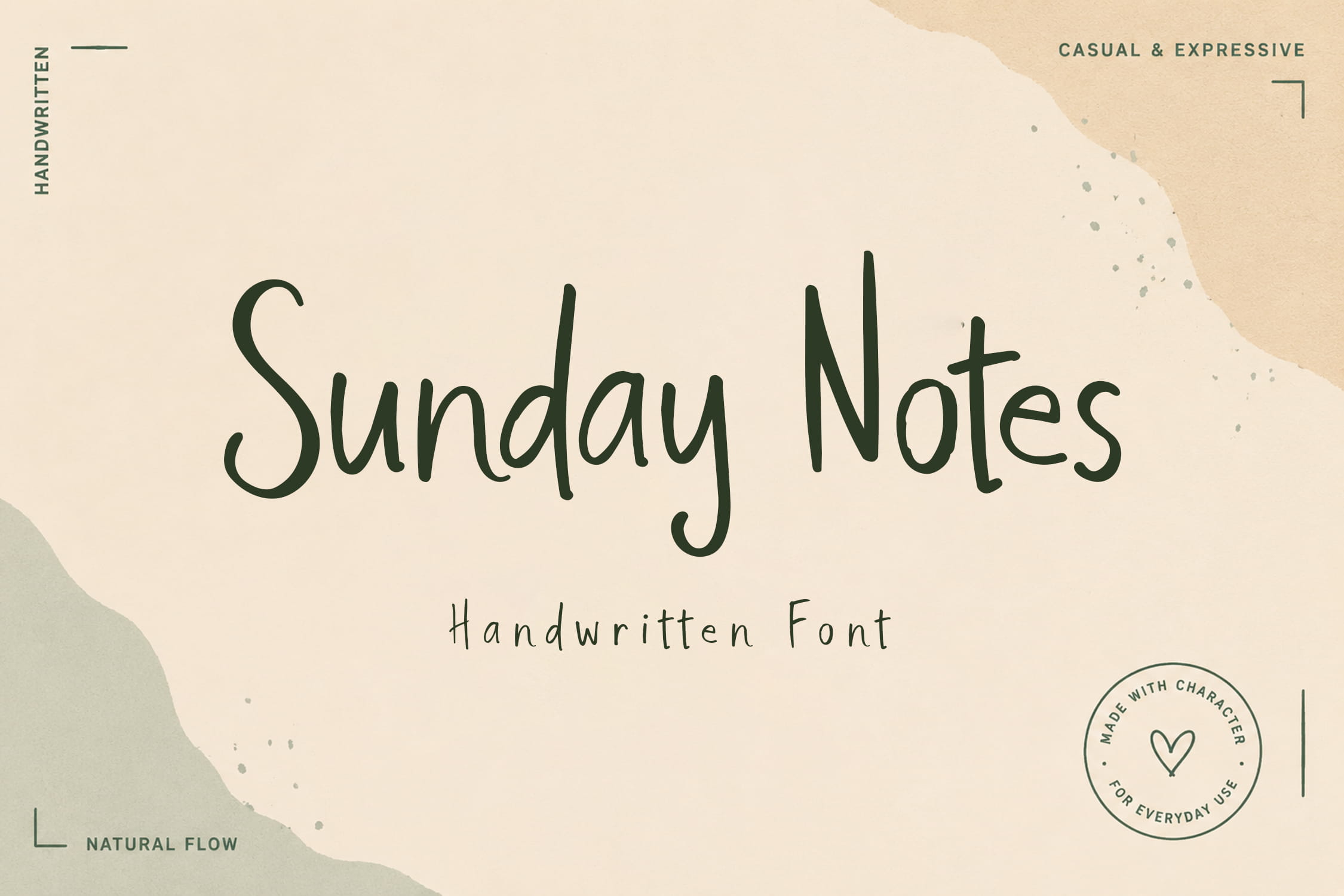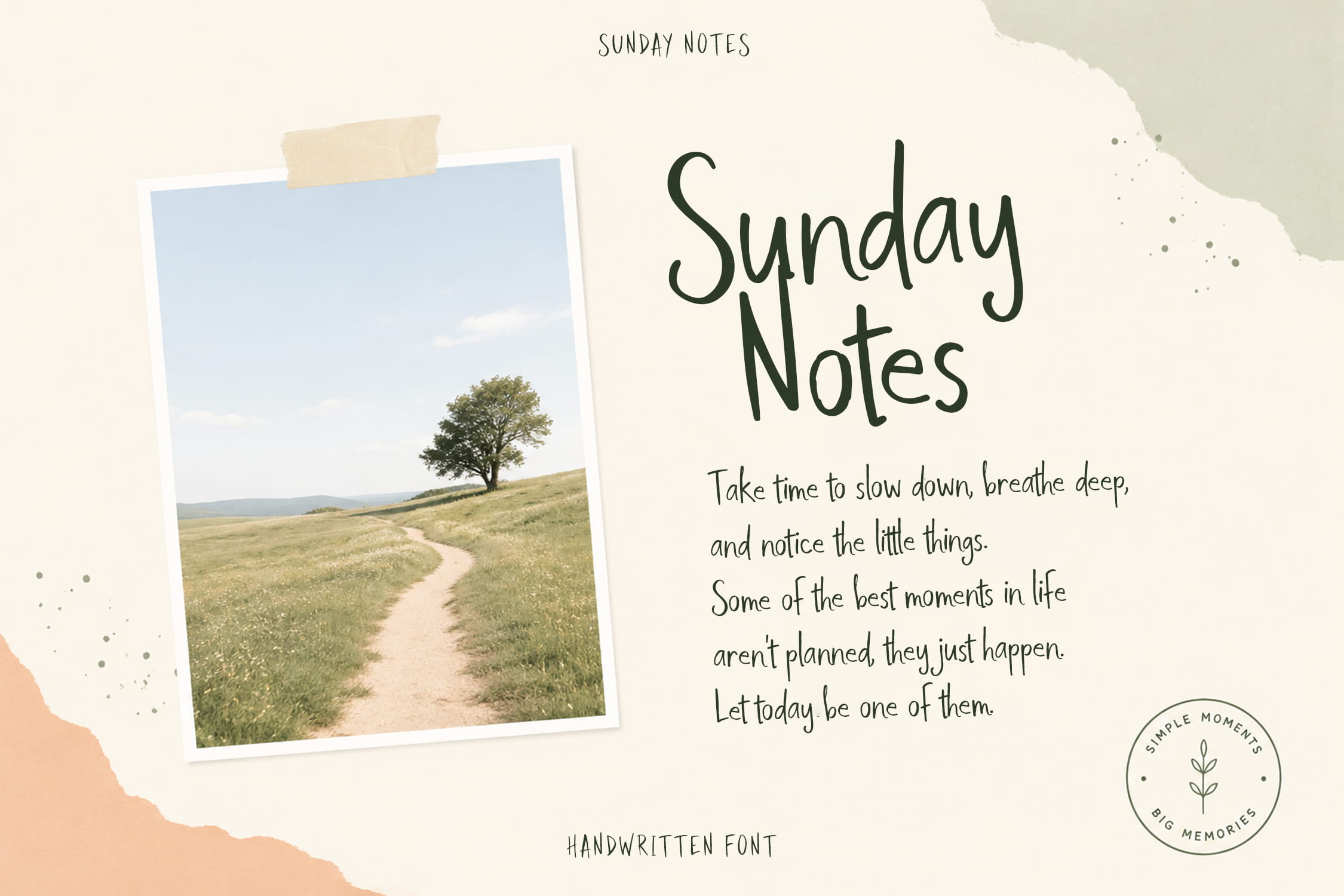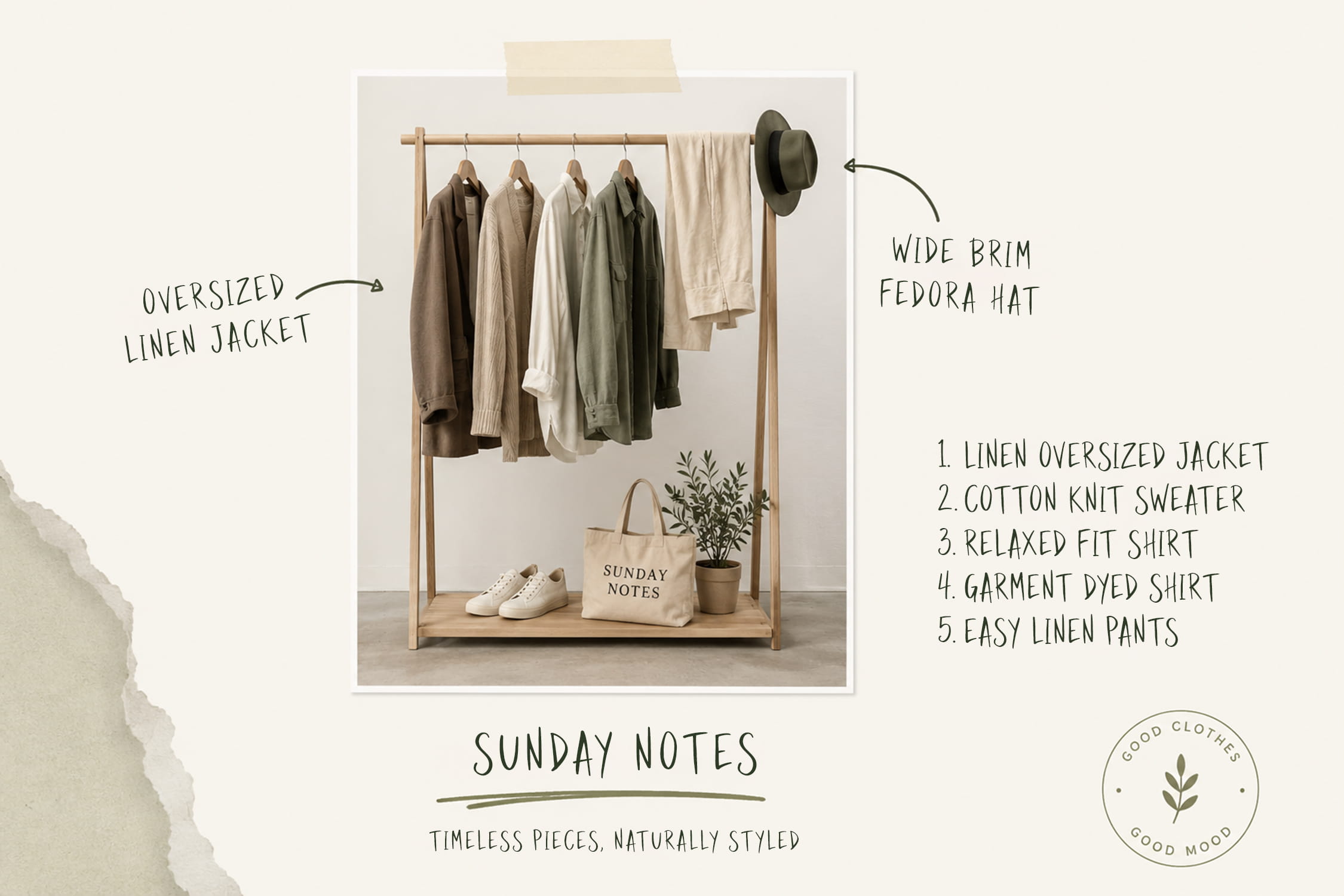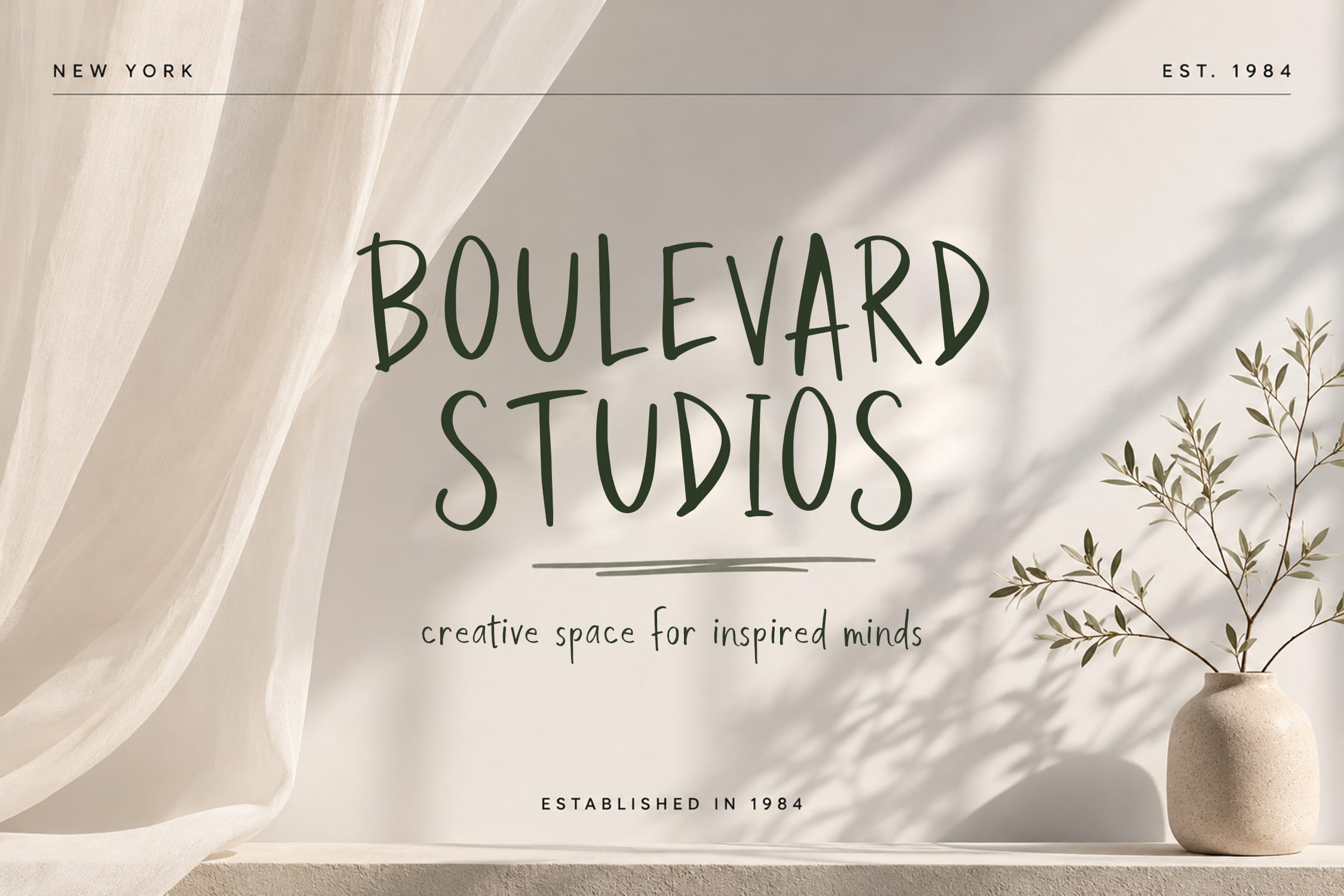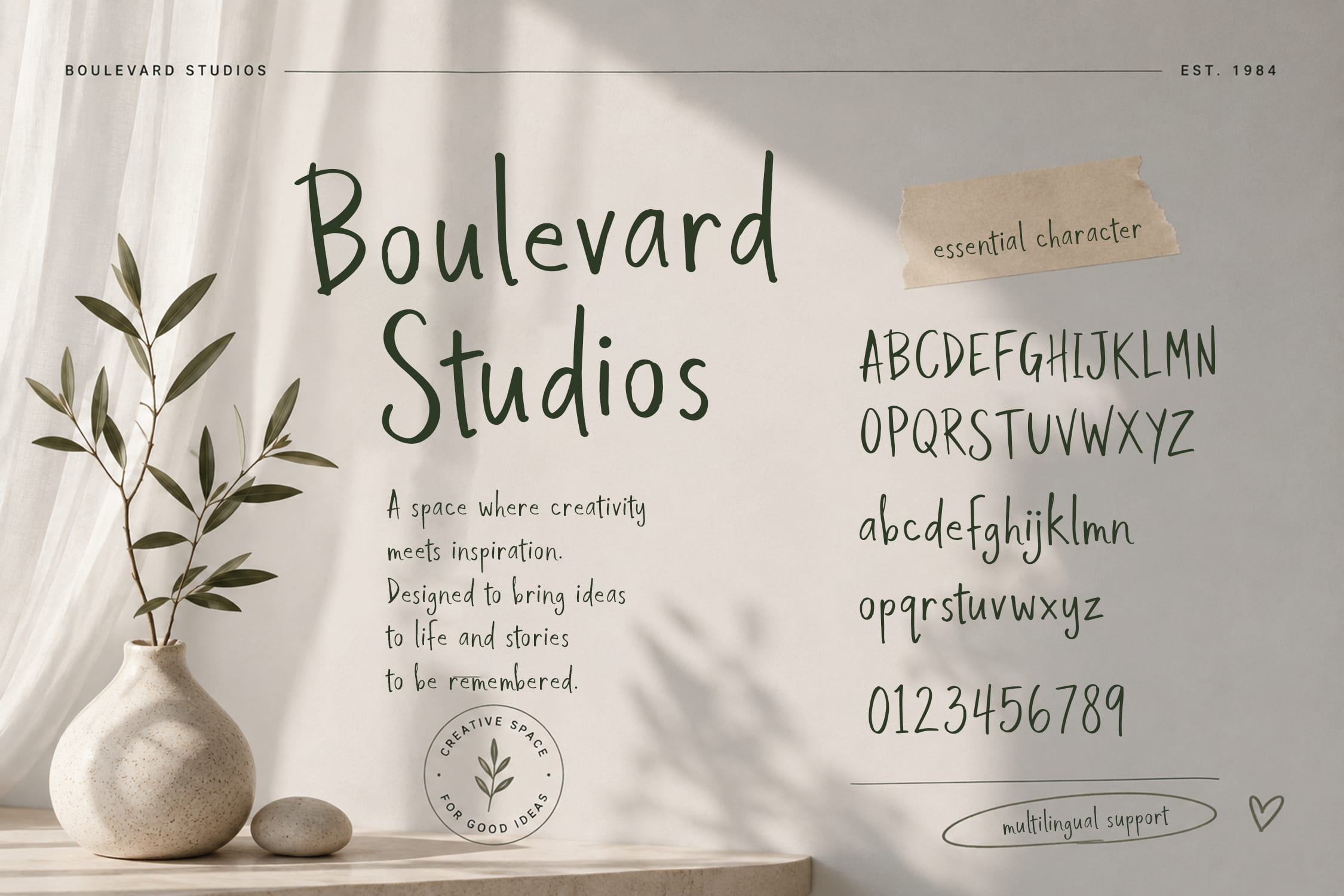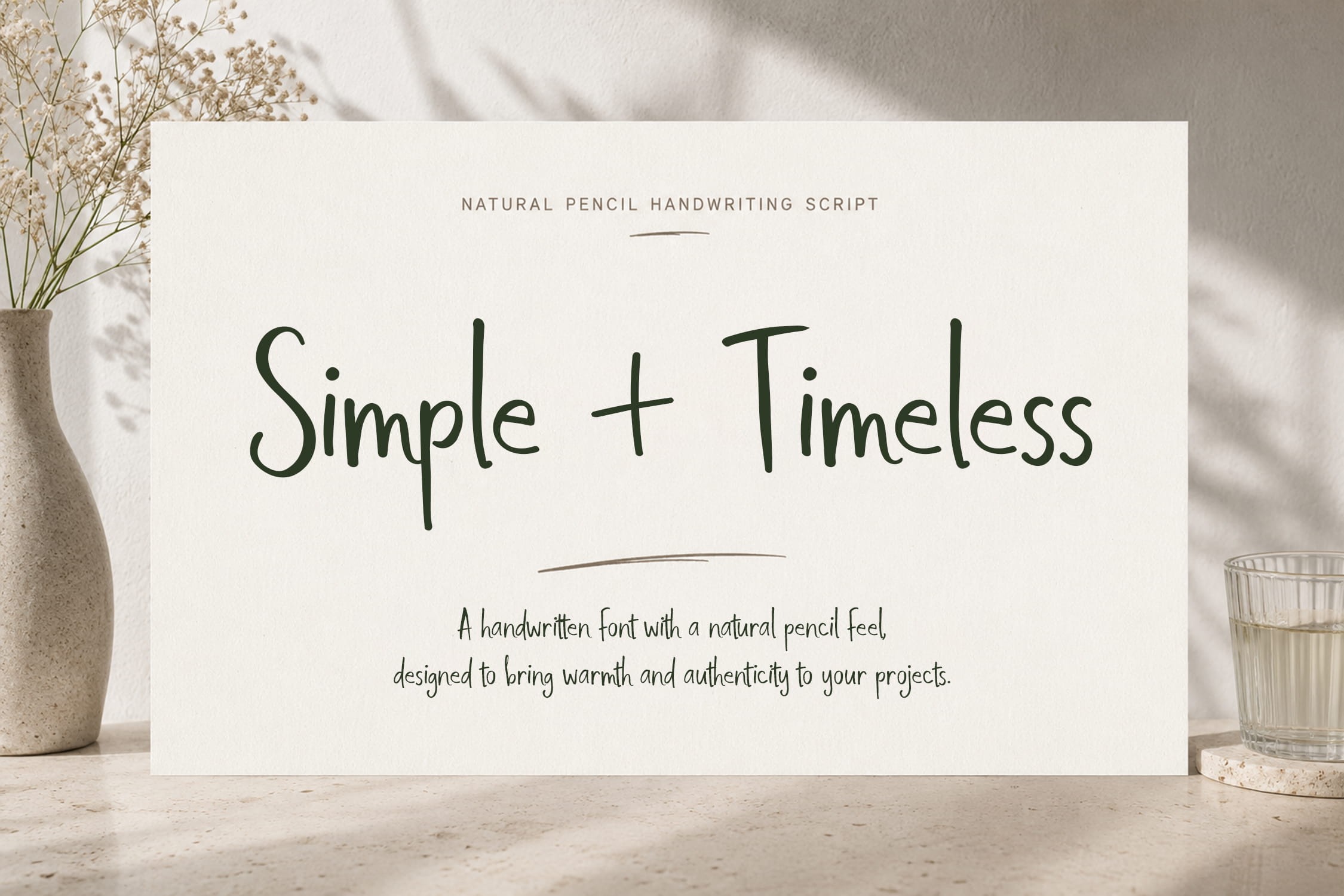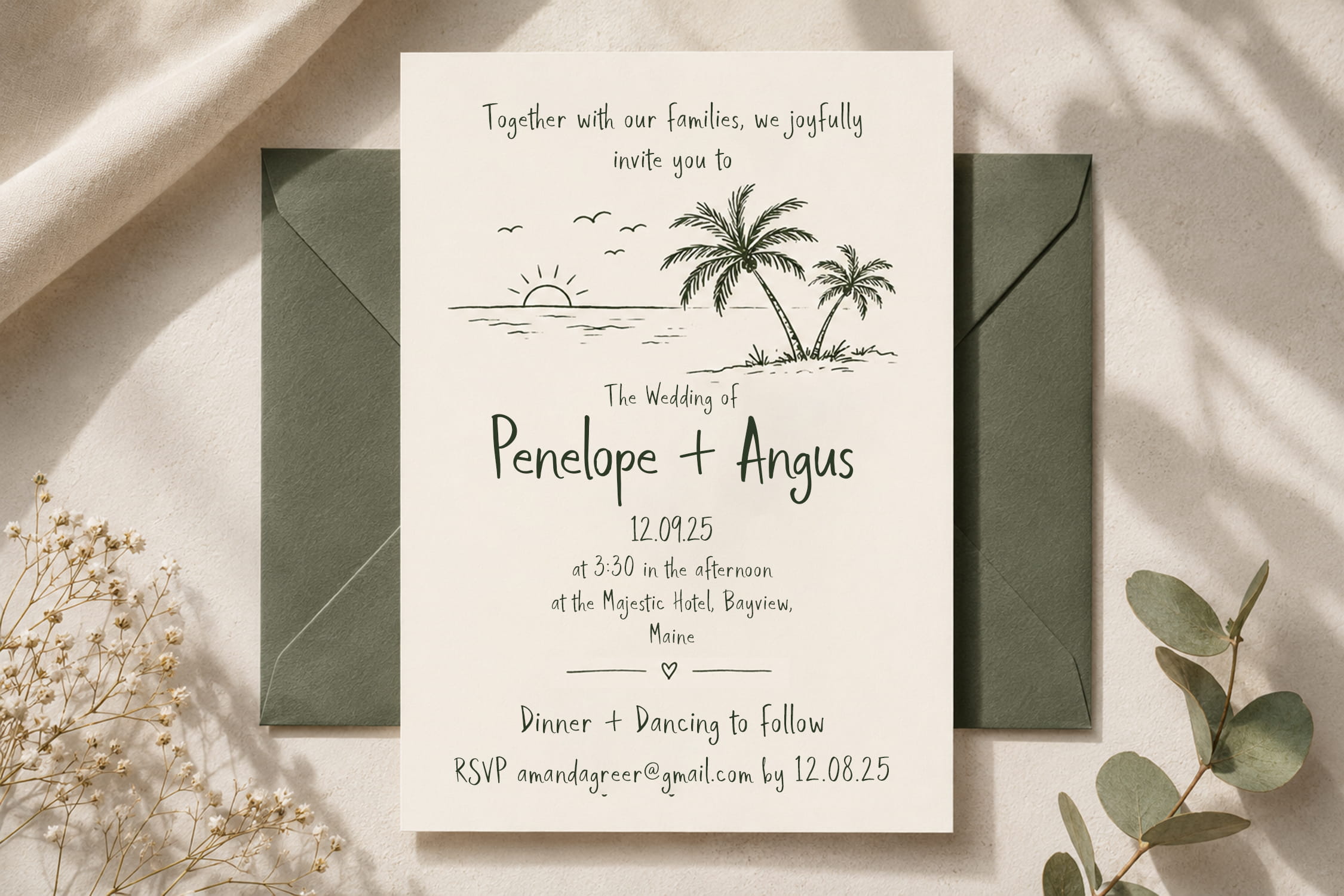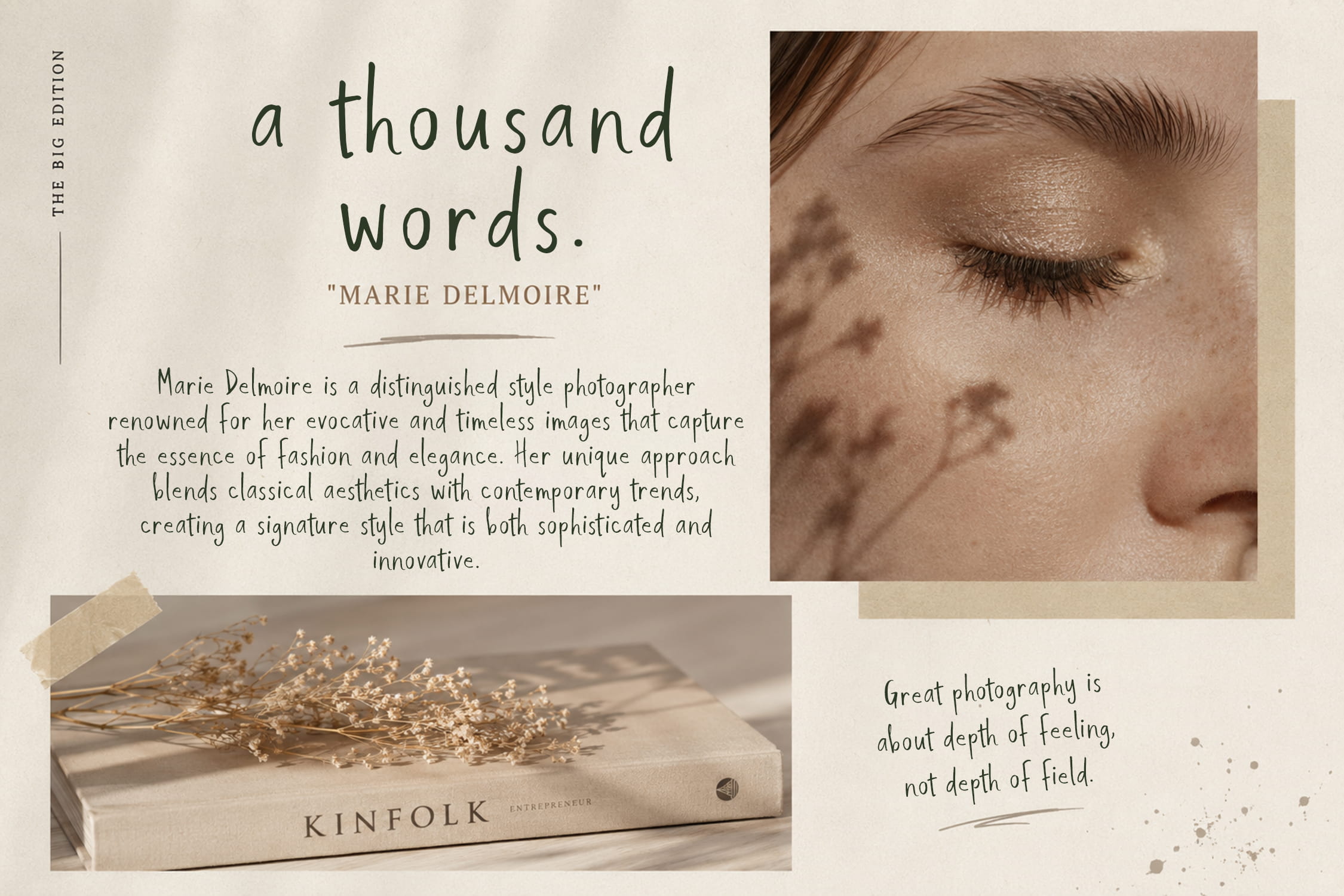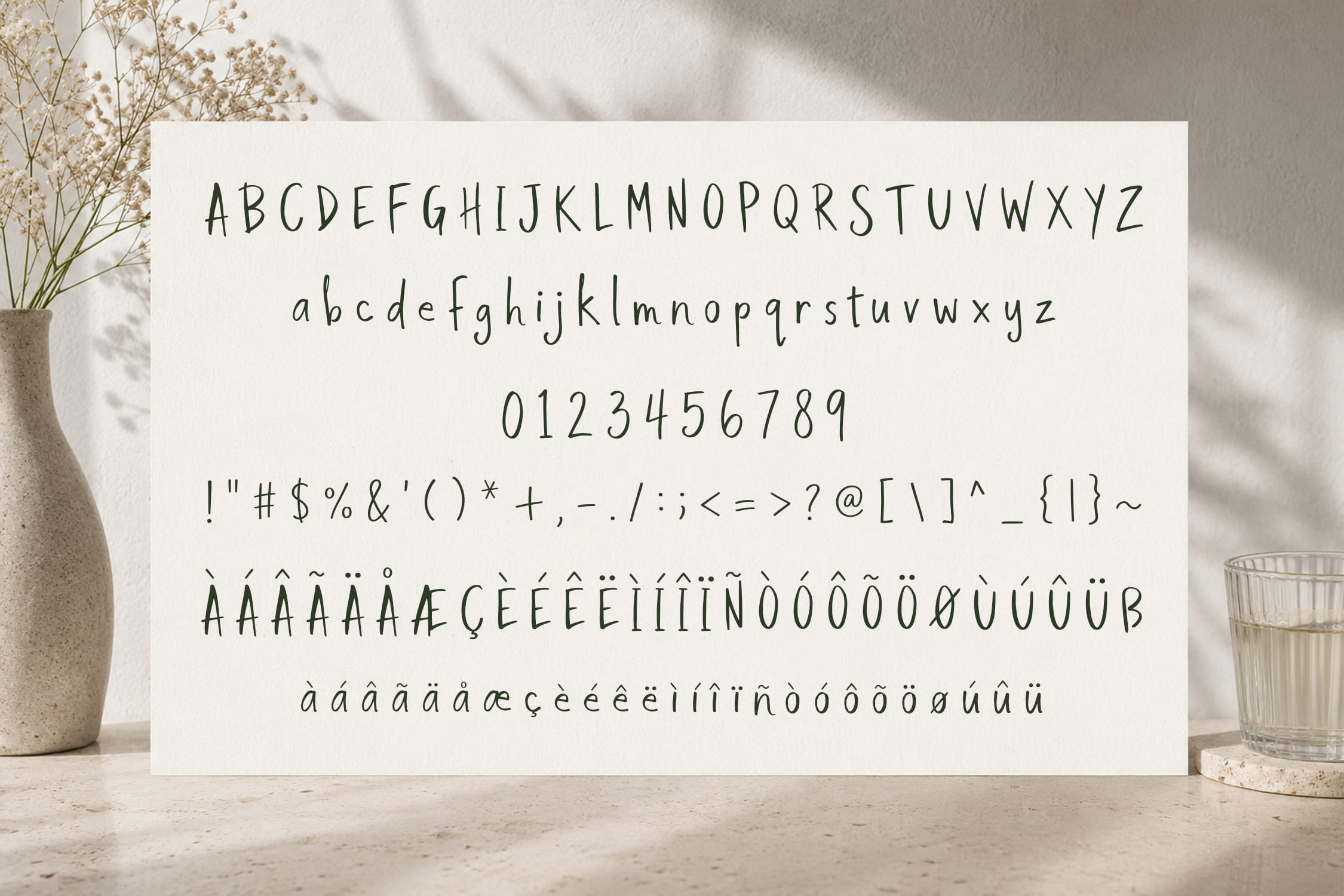
Sunday Notes is a charming handwritten font inspired by slow mornings, personal journals, and simple everyday moments. With its natural strokes and relaxed letterforms, this font captures the warmth of authentic handwriting while maintaining excellent readability. Designed to feel casual, expressive, and effortlessly human, Sunday Notes brings a welcoming personality to any creative project.
Perfect for branding, lifestyle content, wedding stationery, social media graphics, packaging, quotes, journals, invitations, children’s books, and creative presentations, Sunday Notes adds a soft handcrafted touch that feels both modern and timeless. Whether you’re creating a cozy brand identity or designing heartfelt messages, this font helps your work feel personal and genuine.
Bring warmth, simplicity, and authenticity to your designs with Sunday Notes – a handwritten font made for meaningful stories and beautiful everyday creations.